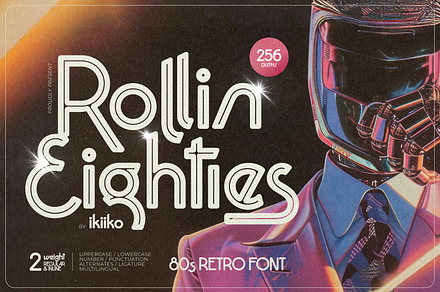
Rollin Eighties – 80s Retro Font
A retro sans drawing on eighties styling – wide proportions, rounded corners and the optimistic geometry of the period.
Eighties type is defined by width and roundness together, since either alone reads as a different decade entirely.
• Period-accurate width and rounding
• Multilingual support
Ideal for
• Retro and synthwave design
• Music and event graphics
• Merch and apparel print
• Gaming and streaming branding